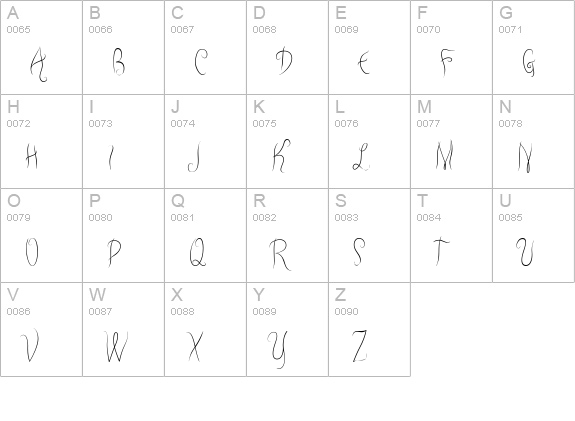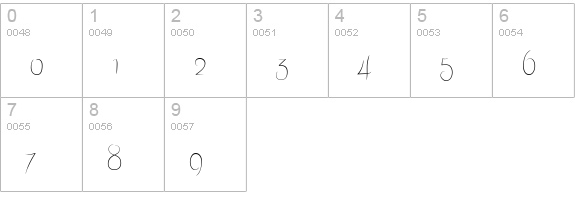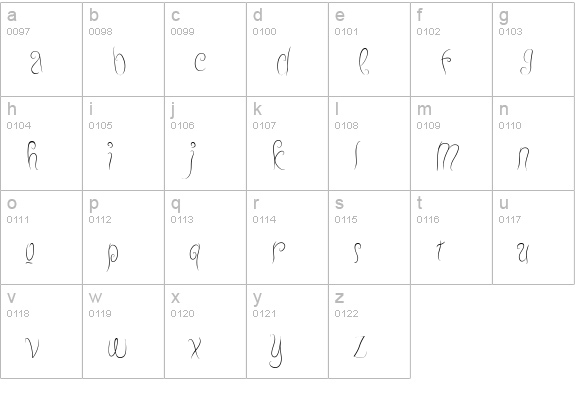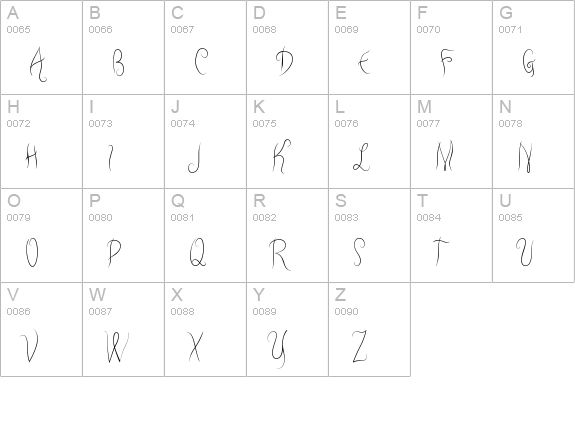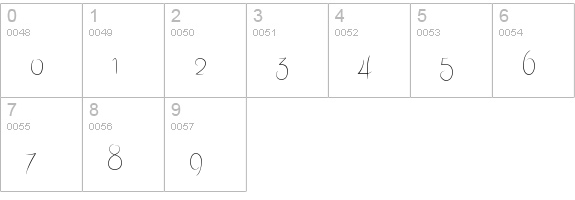
Neurotic Minds BTN Cond is a distinctive, condensed-width variant in the Neurotic typeface family \xE2\x80\x94 well suited to design and typography projects.
Neurotic Minds BTN Cond font is a sleek and modern typeface that exudes a sense of sophistication and creativity. With its clean lines and contemporary design, this font is perfect for adding a touch of elegance to any project. The condensed style of the font gives it a sleek and streamlined look, making it ideal for headlines, titles, and other display purposes. What sets Neurotic Minds BTN Cond font apart is that it is available for free! That's right, you can download this stylish and versatile font for no cost at all from FontsMarket.com. Whether you're working on a professional design project or just looking to spice up your personal creations, Neurotic Minds BTN Cond font is sure to impress. Get your hands on this amazing font today and take your designs to the next level!